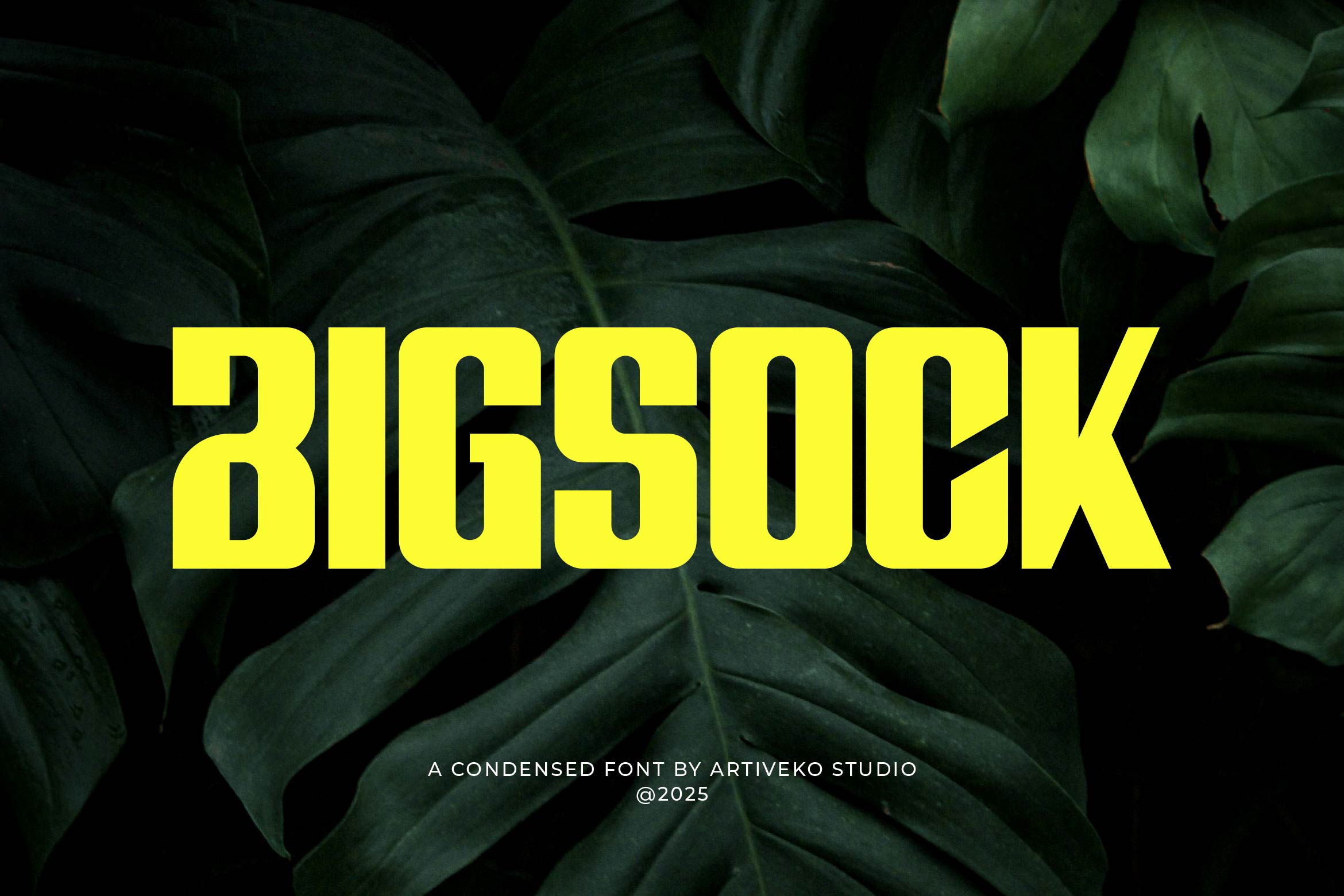
- Bigsock Powerful Sans Serif Font
Bigsock is a powerful sans serif font crafted to make your message stand out with confidence. Featuring thick strokes, clean geometry, and a commanding structure, Bigsock is ideal for logos, posters, headlines, sports graphics, packaging, and branding projects that demand attention.
Its robust design ensures excellent readability even at a distance, while maintaining a modern and professional look. Perfect for high-energy campaigns, dynamic advertising, and statement-making visuals, Bigsock brings strength and clarity to every letter.
The font includes uppercase and lowercase letters, numerals, punctuation, multilingual support, and stylistic alternates for added flexibility and creative control.
Make your typography loud and unforgettable with Bigsock — the bold sans serif font built for modern impact and strong visual presence.